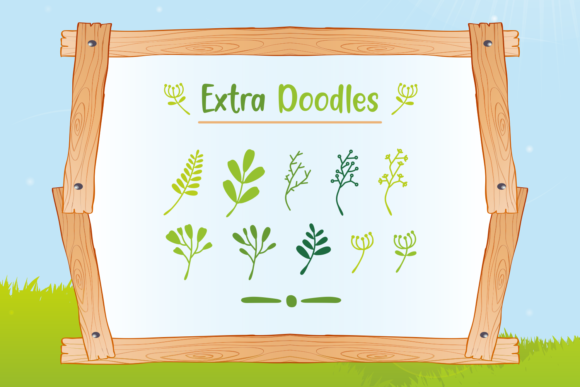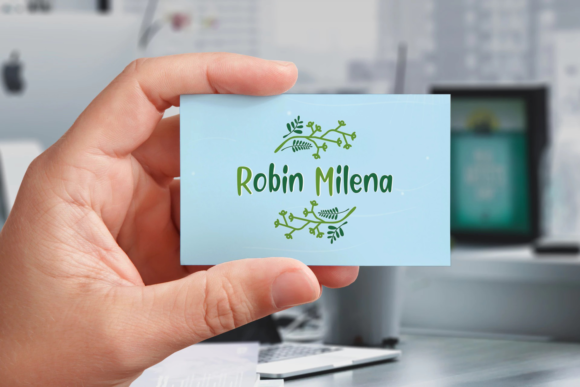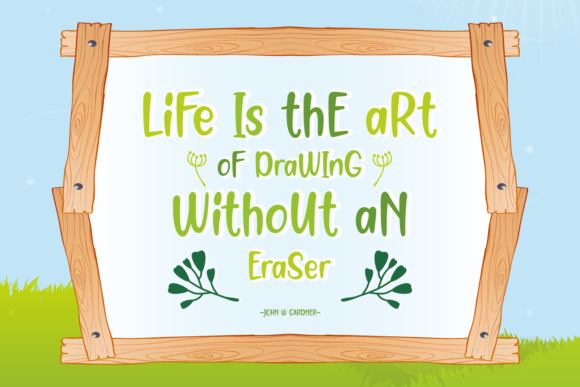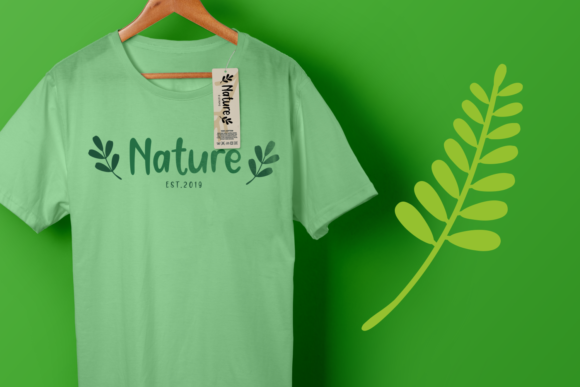
Introduction to Herfismun Font
Do you remember that moment when you’re brainstorming ideas for a design project and everything just falls into place? The colors, the shapes, the typography – it all comes together to create something truly unique and captivating. For designers like us, those moments are what make all the hard work worth it. And sometimes, all it takes is the right font to give our creative project that extra oomph.
That’s where the Herfismun Font comes in – a cute and adorable font that adds a youthful spark to any design project. With its high-quality design and transparent background, this font is a valuable resource for designers looking to add a touch of whimsy to their work. And the best part? It’s available for a free download, making it accessible to designers of all levels.
Key Features of Herfismun Font
• High-quality design for creative projects, ideal for use in graphic design, digital art, and other visual media.
• Features a transparent background, allowing for easy integration into various design compositions.
• Available in a single size, making it easy to use in various design contexts.
• Resolution: 300 DPI, ensuring high-quality rendering in print and digital applications.
• Unique, hand-crafted design elements that can add a touch of personality to any creative project.
Honest Review: Herfismun Font
One of the standout features of the Herfismun Font is its transparent background, which makes it perfect for designers who want to create visually appealing designs without the distraction of a solid background. I also appreciate the fact that it’s a high-quality font, with clear and crisp lines that make it perfect for use in various creative projects.
• ✨ High-quality design with clear and crisp lines
• ✨ Transparent background for added versatility
• ⚠️ Limited character set, which may be a concern for designers who need a font with a wide range of characters
Overall, the Herfismun Font is a solid addition to any designer’s toolkit. While it may have some limitations, its high-quality design and transparent background make it a valuable resource for creative projects. I’d definitely recommend it to designers who are looking for a versatile and stylish font.
Tips for Getting the Most Out of Herfismun Font
To get the most out of Herfismun Font, use it in conjunction with a transparent background to create a high-quality design. This will allow the font to stand out and add a touch of elegance to your creative project.
Herfismun Font is ideal for a variety of creative projects, including:
• Wedding invitations and stationery
• Business cards and marketing materials
• Printable art and wall decor
Is the Herfismun Font suitable for use on a transparent background?
Yes, the Herfismun Font has a transparent background, making it perfect for use on transparent or semi-transparent backgrounds. The font’s design allows for seamless blending with other design elements, creating a clean and professional look for your creative project.